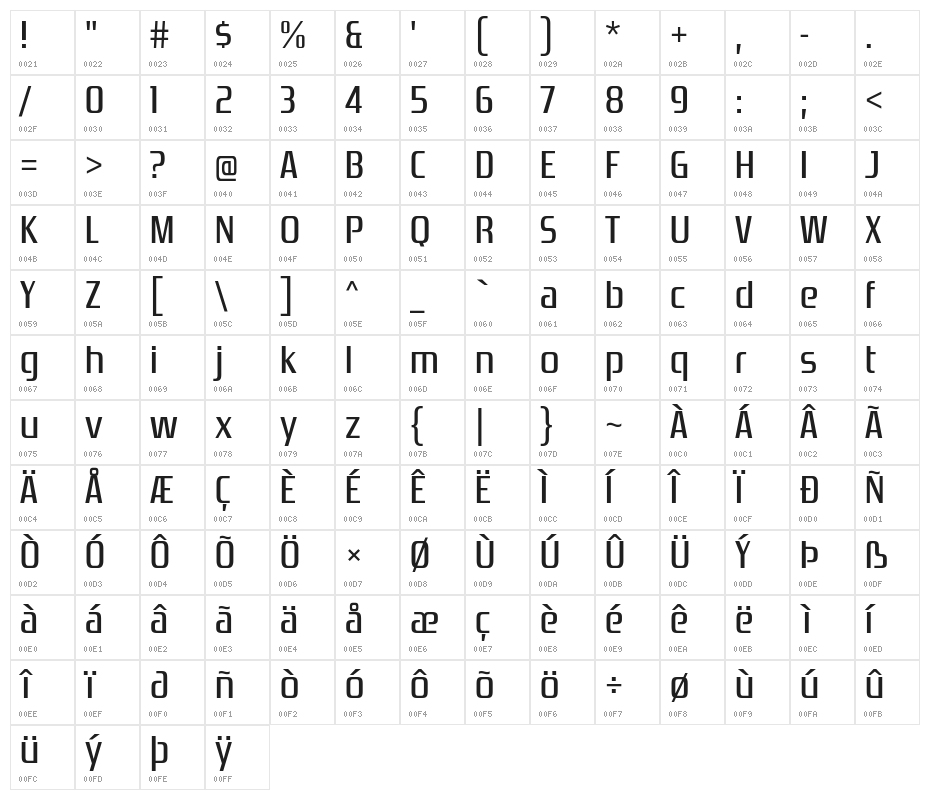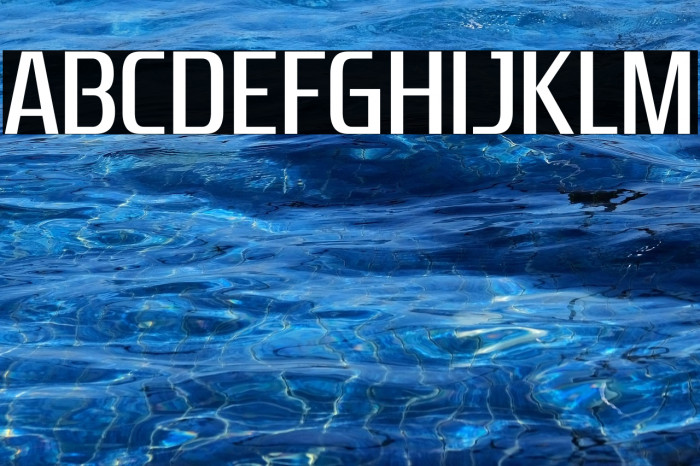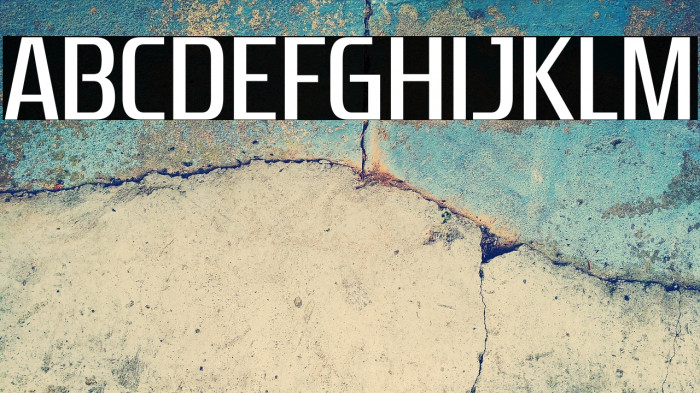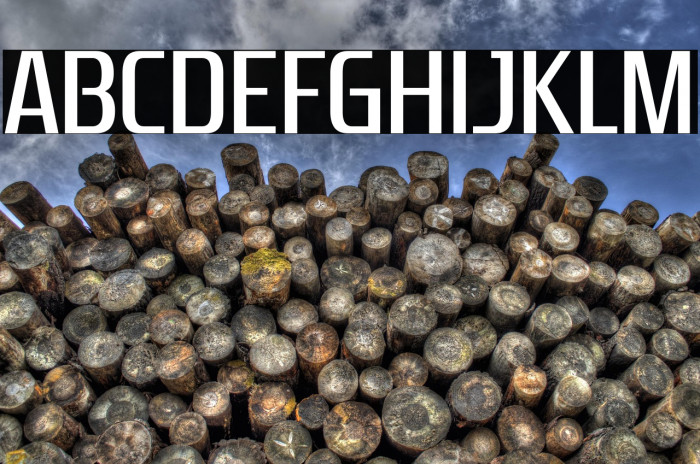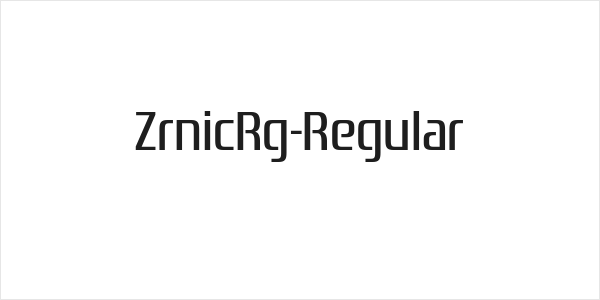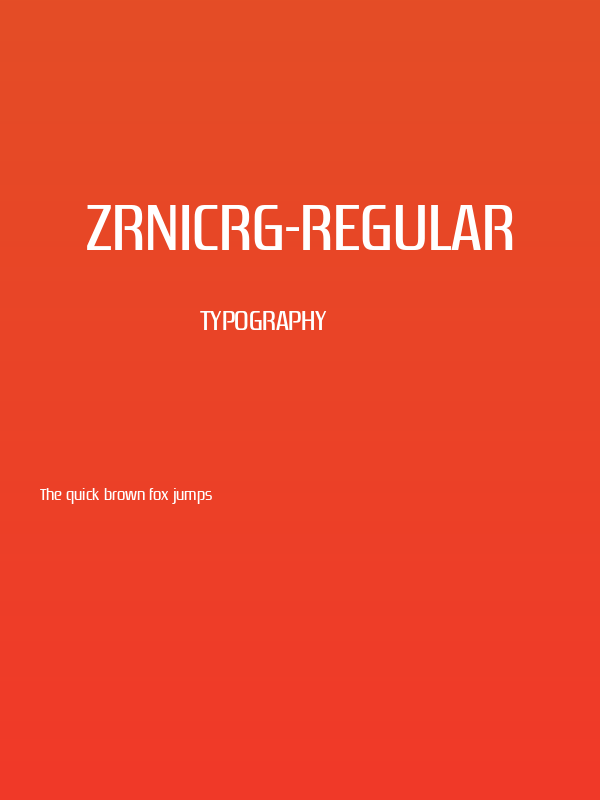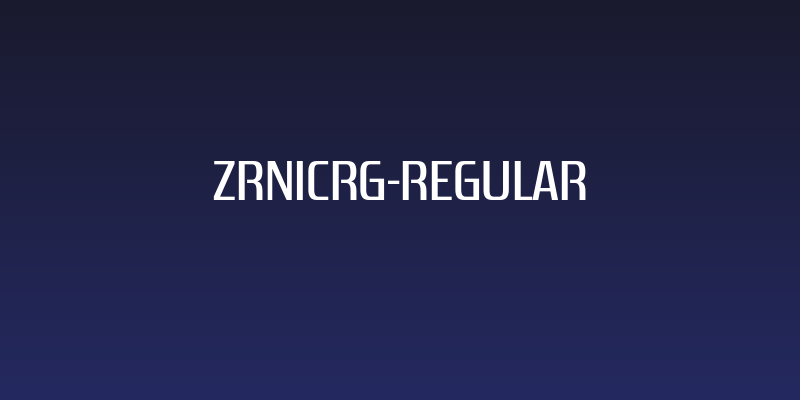
ZrnicRg-Regular Font
ZrnicRg-Regular Description
This font features a modern, geometric design with clean lines and a structured appearance. The characters are slightly condensed, giving it a sleek and compact look. The uppercase letters are bold and assertive, while the lowercase letters maintain a consistent style with rounded edges and uniform stroke widths. The numerals are clear and easy to read, matching the overall aesthetic of the alphabet. Special characters are well-integrated, maintaining the font's cohesive design. This font is versatile, suitable for both digital and print media, and can be used effectively in various design contexts.
| Proposed Projects | Ideal for branding, advertising, web design, and editorial layouts due to its modern and clean aesthetic. |